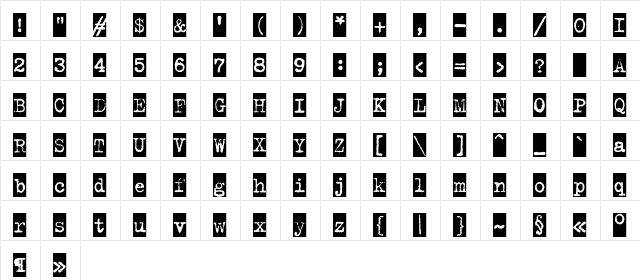
TrixieCyr Regular
| Foundry | Erik van Blokland Version . b Cyrillic Trixie |
Design Context for TrixieCyr Typeface
TrixieCyr takes a measured approach to typography — its balanced proportions and neutral character make it a reliable workhorse for both digital and print work.